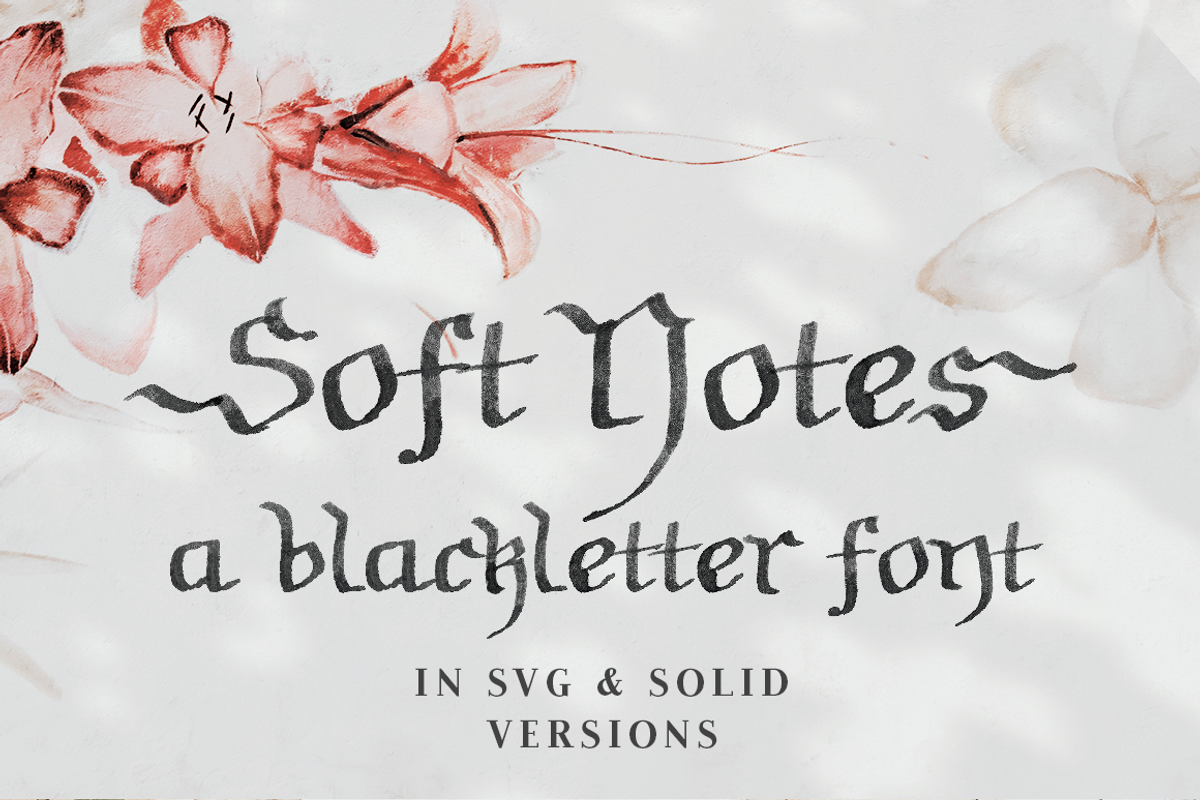
Soft Notes SVG Blackletter Font Free Download is a unique and creative take on the traditional blackletter style, combining intricate details with a modern, slightly softer edge. Designed for use in decorative and artistic projects, this SVG font brings texture and depth, perfect for vintage-inspired designs, posters, logos, book covers, and event invitations.
Unlike traditional blackletter fonts, Soft Notes incorporates smooth, flowing lines while still maintaining the distinctive feel of a gothic script. This makes it ideal for designs that need a balance of old-world charm with contemporary elegance.